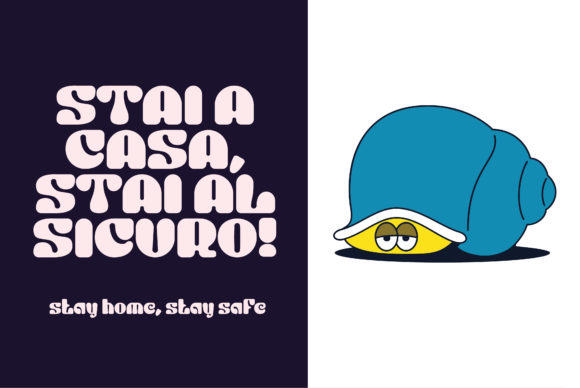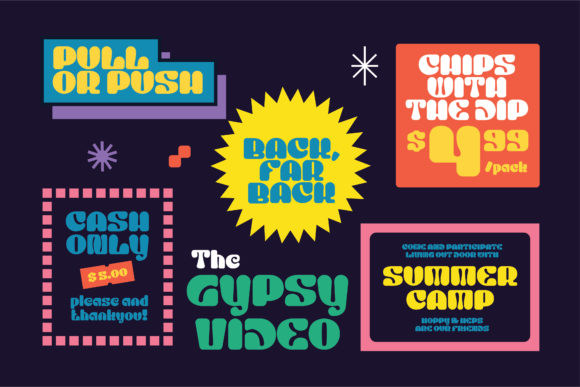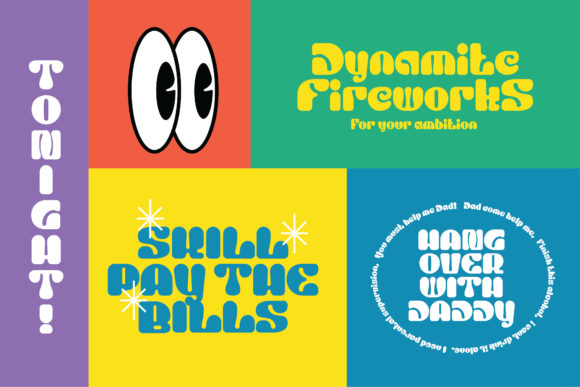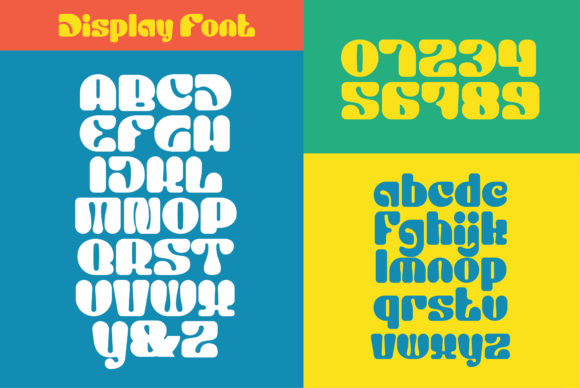
Daiquiri Font: The Ultimate Display Font for Bold Designs
Are you looking for a font that can add a touch of boldness and thickness to your designs? Look no further than the Daiquiri font. This display font is perfect for creating eye-catching logos, headings, and other visual elements that require a strong and sturdy letterform. In this article, we’ll explore the features and benefits of the Daiquiri font, and how it can be used for various purposes such as logos, headings, t-shirts, letterhead, signage, labels, news, posters, badges, and more.
What is Daiquiri Font?
Daiquiri is a bold and thick lettered display font that is designed to make a statement. Its sturdy and robust letterforms make it perfect for use in a variety of design projects, from logos and headings to posters and signage. The font is highly legible, even at small sizes, making it a versatile choice for designers and crafters.
Key Features of Daiquiri Font
- Bold and Thick Letterforms: The Daiquiri font features bold and thick letterforms that are perfect for creating eye-catching designs.
- Highly Legible: The font is highly legible, even at small sizes, making it a great choice for use in a variety of design projects.
- Versatile: The Daiquiri font can be used for a wide range of design projects, from logos and headings to posters and signage.
- Easy to Read: The font is easy to read, even from a distance, making it perfect for use in signage and other applications where readability is key.
Uses of Daiquiri Font
The Daiquiri font is a versatile font that can be used for a wide range of design projects. Here are some of the most popular uses of the font:
- Logos: The Daiquiri font is perfect for creating bold and eye-catching logos that make a statement.
- Headings: The font is great for use in headings, where a bold and sturdy letterform is needed to grab the reader’s attention.
- T-Shirts: The Daiquiri font is a popular choice for use on t-shirts, where its bold and thick letterforms can be used to create eye-catching designs.
- Letterhead: The font is perfect for use in letterhead, where a bold and professional letterform is needed.
- Signage: The Daiquiri font is a great choice for use in signage, where its bold and easy-to-read letterforms can be used to create eye-catching signs.
- Labels: The font is perfect for use in labels, where a bold and sturdy letterform is needed to create eye-catching labels.
- News: The Daiquiri font can be used in news applications, such as newspaper headlines and magazine titles.
- Posters: The font is great for use in posters, where its bold and eye-catching letterforms can be used to create stunning designs.
- Badges: The Daiquiri font is perfect for use in badges, where a bold and sturdy letterform is needed to create eye-catching badges.
Benefits of Using Daiquiri Font
The Daiquiri font offers a number of benefits to designers and crafters. Here are some of the most significant advantages of using the font:
- Unique and Eye-Catching Designs: The Daiquiri font allows designers to create unique and eye-catching designs that stand out from the crowd.
- Highly Legible: The font is highly legible, even at small sizes, making it a great choice for use in a variety of design projects.
- Versatile: The Daiquiri font can be used for a wide range of design projects, from logos and headings to posters and signage.
- Easy to Use: The font is easy to use and can be easily integrated into a variety of design applications.
| Font Name | Daiquiri Font |
| Author | MHM STUDIO |
In conclusion, the Daiquiri font is a bold and thick lettered display font that is perfect for creating eye-catching designs. Its highly legible and versatile nature makes it a great choice for use in a wide range of design projects, from logos and headings to posters and signage. With its unique and eye-catching letterforms, the Daiquiri font is sure to make a statement in any design project.